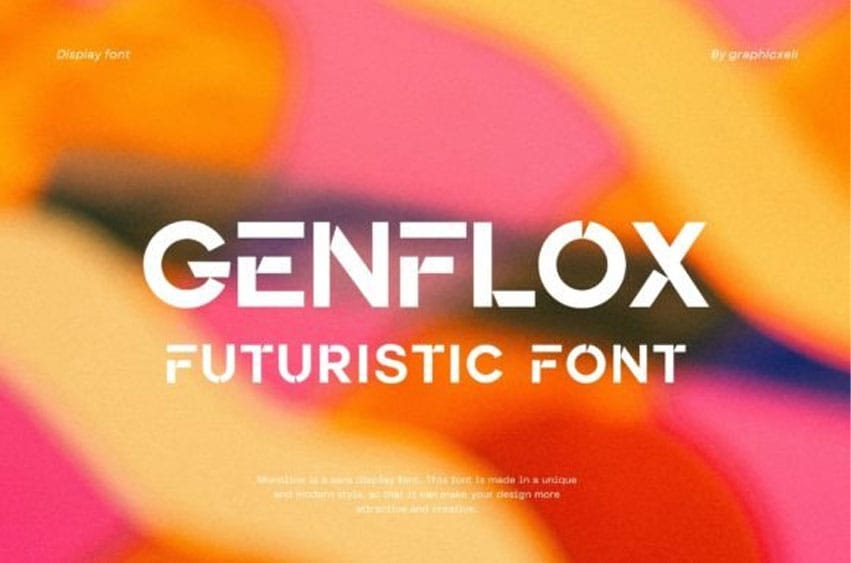
Genflox Font is futuristic sans font a bold and forward-looking typeface designed with sleek lines and geometric precision. Its clean and minimalist appearance reflects a contemporary aesthetic that is both sophisticated and modern.
The letters of this font have a streamlined and refined form, characterized by smooth curves and sharp angles.
With its versatile nature, this font is suitable for a wide range of applications, branding projects, posters, product packaging, headlines, or display purposes. The futuristic sans font captivates attention and communicates a sense of innovation and sophistication.